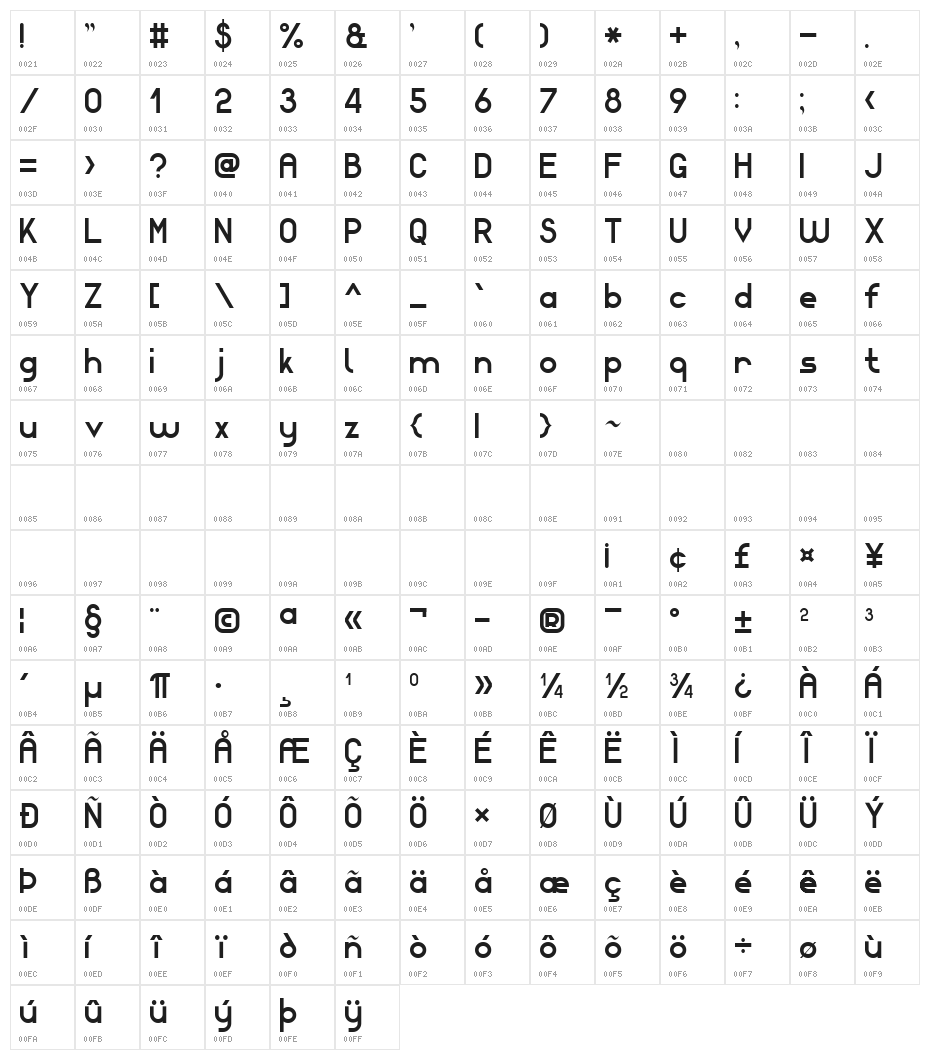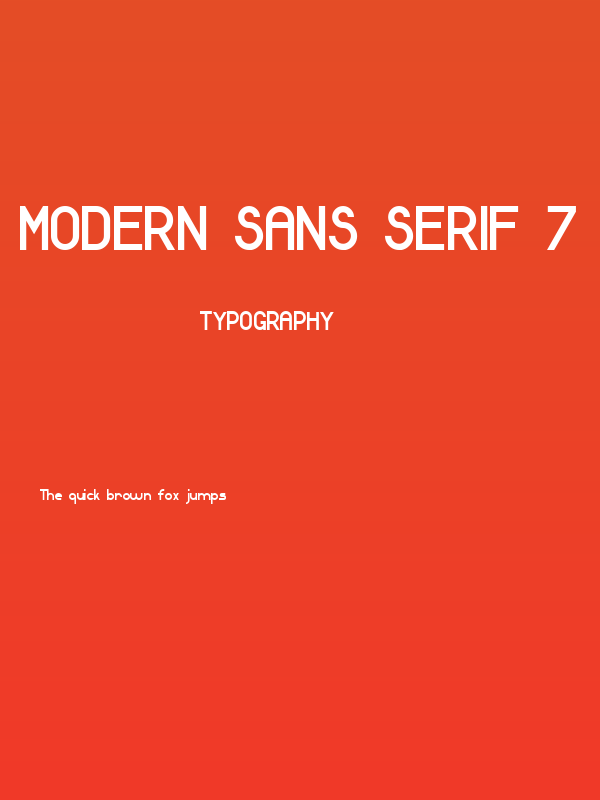
Modern Sans Serif 7 Font
Modern Sans Serif 7 Description
This font features a clean and modern sans-serif design, characterized by its geometric shapes and uniform stroke widths. The uppercase letters are bold and assertive, with a slight curvature that adds a touch of softness to the overall appearance. The lowercase letters maintain a consistent style, offering a harmonious balance between form and function. The numerals are clear and legible, making them suitable for various applications. Special characters are well-integrated, maintaining the font's cohesive look. This typeface is versatile, suitable for both digital and print media, and can be used effectively in a variety of design contexts.
| Use Case | Headlines, Logos, Digital Media |
| Proposed Projects | Ideal for branding, web design, advertising, and editorial layouts. |